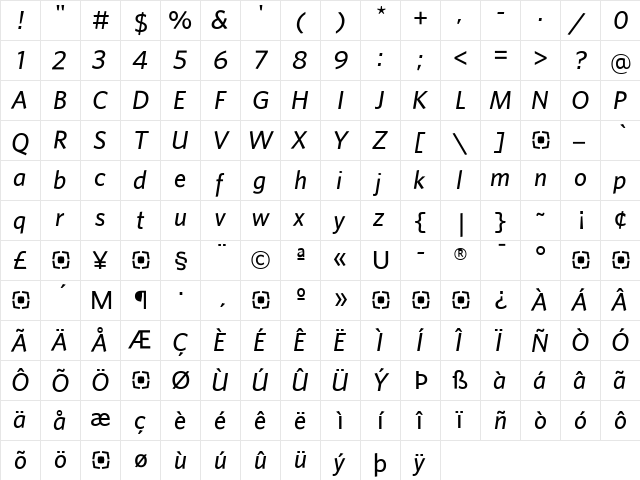
WhitneySans Regular Font Preview
WhitneySans Regular
Design Context for WhitneySans Typeface
WhitneySans takes a measured approach to typography — its balanced proportions and neutral character make it a reliable workhorse for both digital and print work.